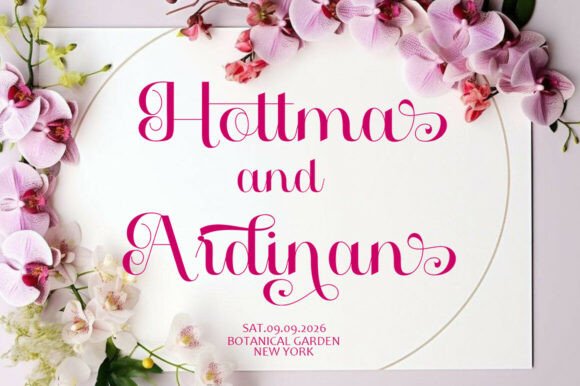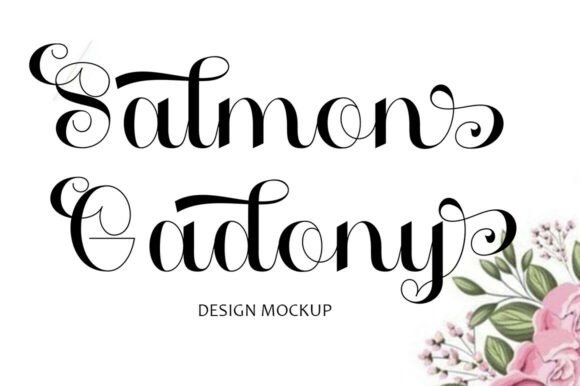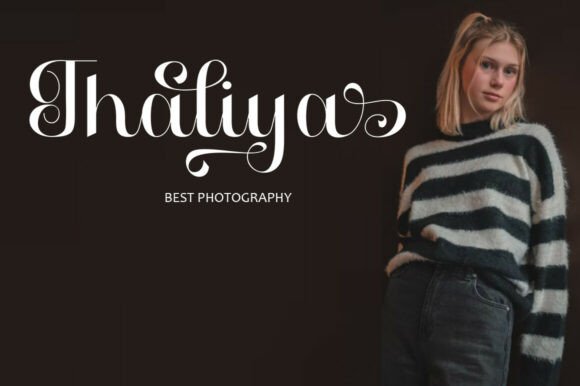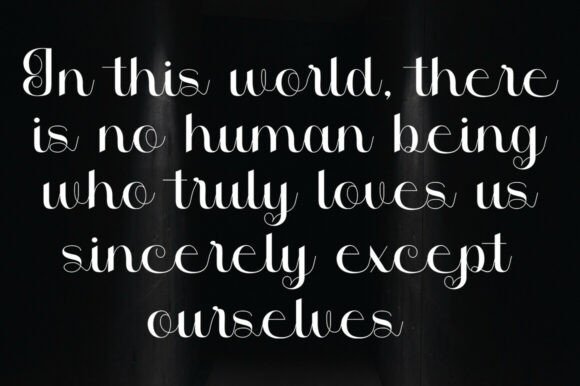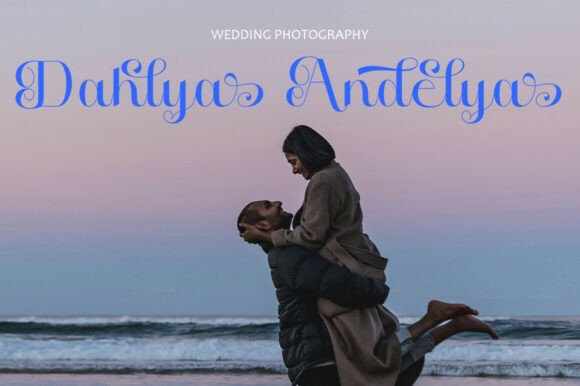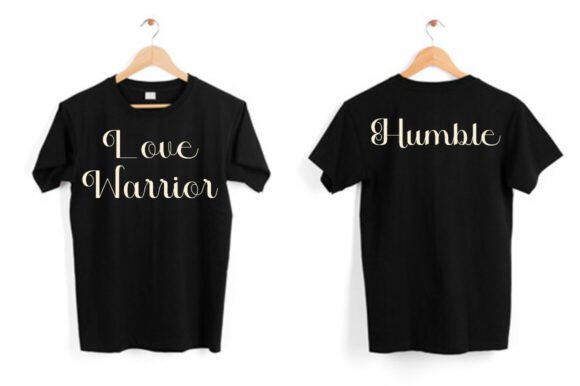
Introducing Agattha Seldyana Font: Elevate Your Designs with Artistic Flair and Contemporary Elegance
In the world of typography, few fonts manage to strike a balance between artistic expression and modern sophistication. Agattha Seldyana Font is one such exceptional typeface that brings together the fluidity of brush strokes, the dynamism of curves, and the expressiveness of letterforms to create a truly unique visual experience. This stylish script font is designed to infuse your designs with a creative and sophisticated touch, making it perfect for a wide range of applications, from logos and invitations to packaging and social media graphics.
The Essence of Hand-Painted Calligraphy with a Modern Twist
Agattha Seldyana Font draws inspiration from the art of hand-painted calligraphy, bringing a personal and intimate feel to your designs. Its fluid brush strokes and dynamic curves evoke a sense of movement and spontaneity, as if each letter was carefully crafted by hand. At the same time, the font’s contemporary elegance ensures that it remains versatile and adaptable, suitable for both traditional and modern design contexts.
Key Features of Agattha Seldyana Font
• Fluid Brush Strokes: The font’s fluid brush strokes give it a natural, hand-painted look that adds warmth and character to your designs.
• Dynamic Curves: The dynamic curves and expressive letterforms of Agattha Seldyana Font create a sense of movement and energy, making it perfect for designs that require a touch of elegance and sophistication.
• Contemporary Elegance: With its modern twist on traditional calligraphy, this font is ideal for designers who want to create unique and stylish designs that stand out from the crowd.
• Vibrant Character: Agattha Seldyana Font has a vibrant character that adds a creative and sophisticated touch to any design, making it perfect for a wide range of applications.
Use Cases for Agattha Seldyana Font
Agattha Seldyana Font is an incredibly versatile typeface that can be used in a variety of design contexts. Here are some of the most popular use cases for this stylish script font:
• Logos: Create a unique and memorable logo for your brand with Agattha Seldyana Font, adding a touch of elegance and sophistication to your visual identity.
• Invitations: Use this font to create beautiful and stylish invitations for weddings, parties, and other special events.
• Packaging: Add a creative and sophisticated touch to your product packaging with Agattha Seldyana Font, making your brand stand out on store shelves.
• Social Media Graphics: Use this font to create engaging and stylish social media graphics, from Facebook posts to Instagram stories.
Why Choose Agattha Seldyana Font?
With so many fonts available, why choose Agattha Seldyana Font for your design projects? Here are just a few reasons why this stylish script font stands out from the crowd:
• Unique Visual Experience: Agattha Seldyana Font offers a unique visual experience that combines artistic expression with modern sophistication.
• Versatility: This font is incredibly versatile, suitable for a wide range of design contexts and applications.
Agattha Seldyana Font is a stylish script font that offers a unique combination of artistic flair and contemporary elegance. With its fluid brush strokes, dynamic curves, and expressive letterforms, this font is perfect for designers and crafters who want to add a creative and sophisticated touch to their designs. Whether you’re creating logos, invitations, packaging, or social media graphics, Agattha Seldyana Font is an excellent choice for any design project.